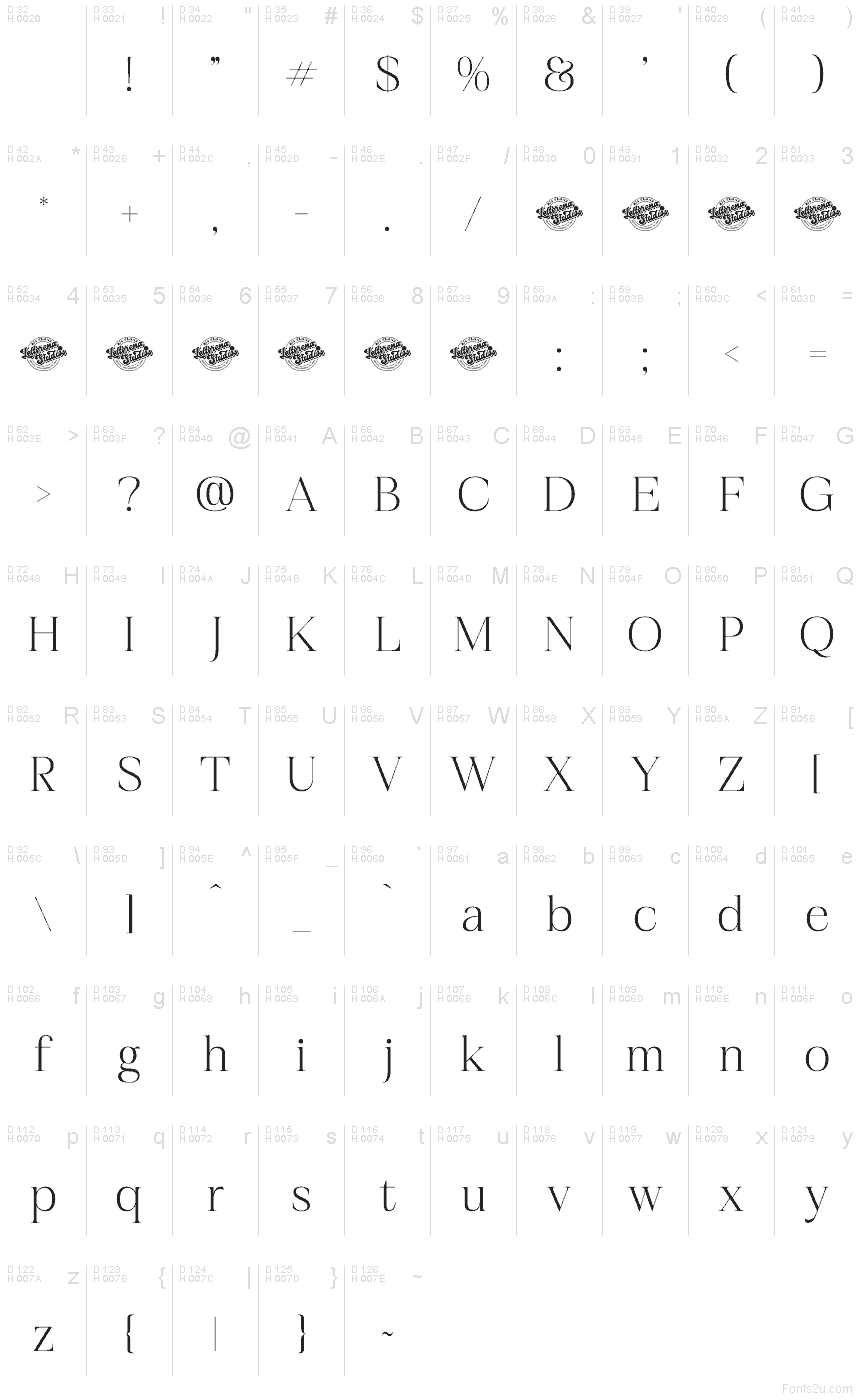
Realife Moment font by Letterena Studios beautifully merges elegance and sophistication in a refined serif style. With its elongated serifs, the font embodies a modern classic feel that is both timeless and contemporary. Its balanced design is graceful, ideal for projects where luxury and refinement are key.
This free serif font suits branding, packaging designs, invitations, clothing labels, logos, books, magazines, posters, websites, product advertisements projects and many others.